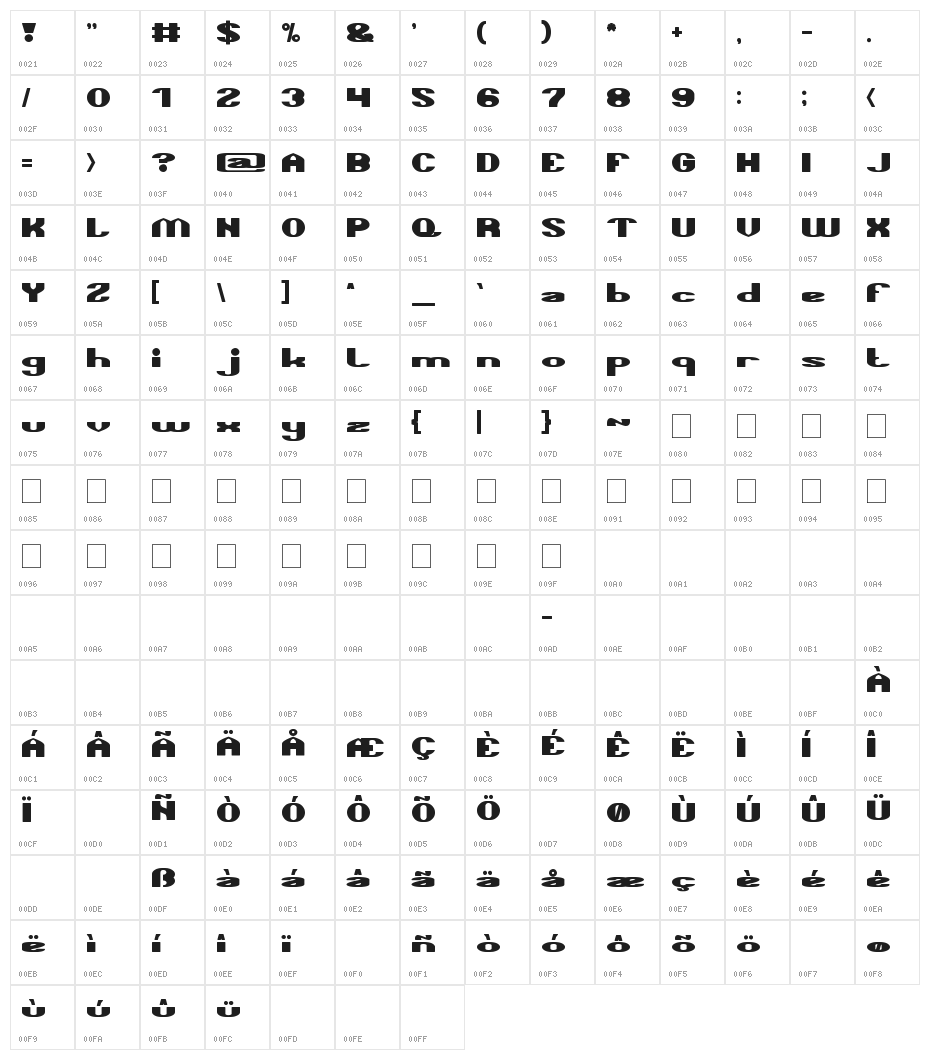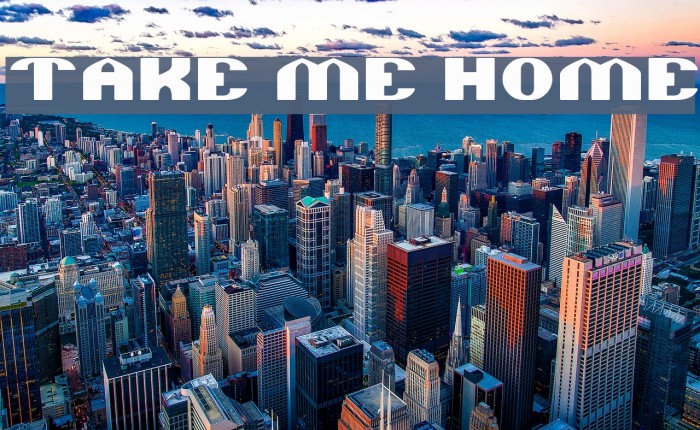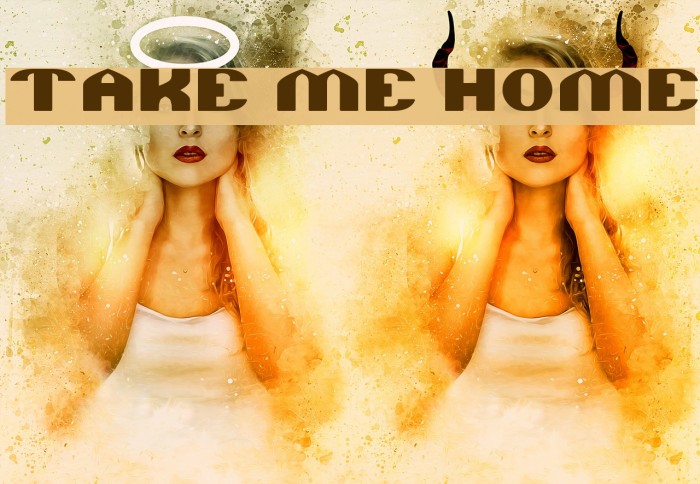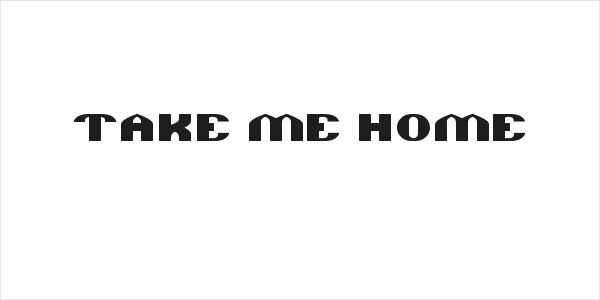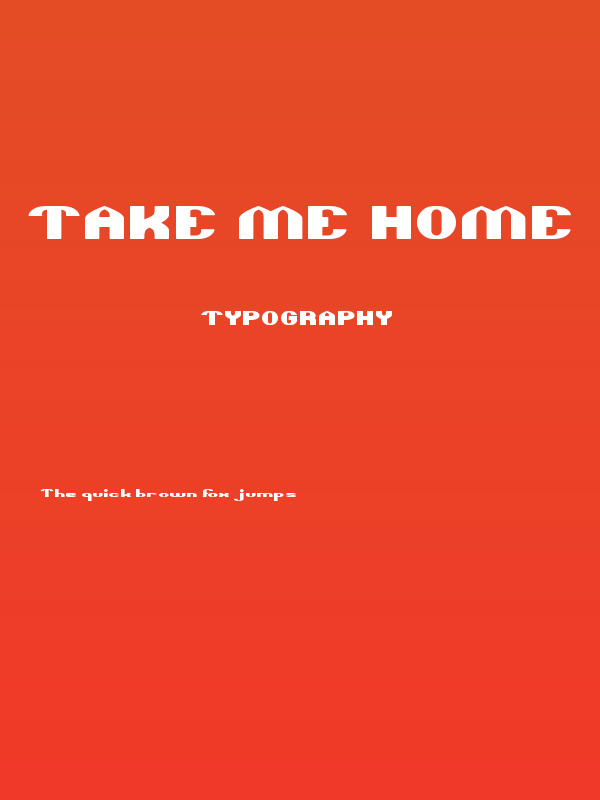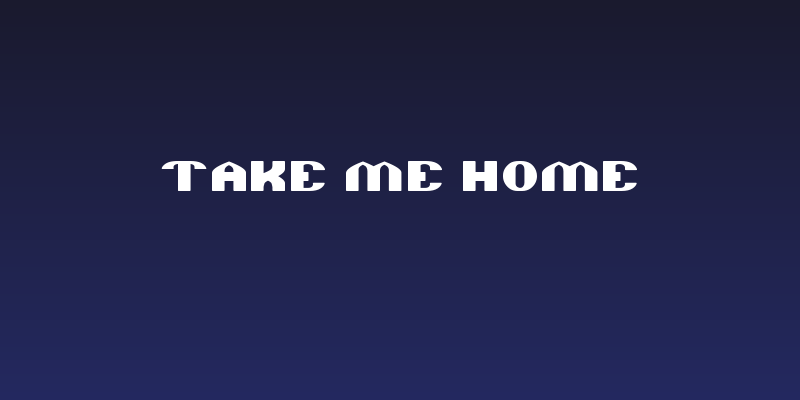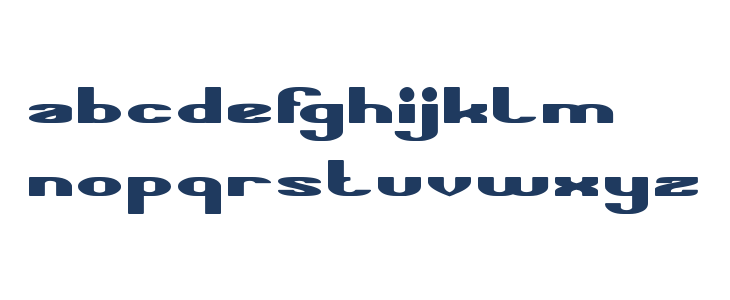
TAKE ME HOME Font
TAKE ME HOME Description
This font features a bold, geometric style with a strong presence. The characters are wide and have a distinct, blocky appearance, making them highly legible and impactful. The uppercase letters have a uniform height, while the lowercase letters maintain a consistent baseline with slight variations in height. The numbers are bold and match the overall style of the alphabet, ensuring consistency across different types of content. Special characters are designed to complement the alphabet, maintaining the same bold and geometric aesthetic. This font is ideal for projects that require a strong visual impact and clear readability.
Proposed ProjectsIdeal for posters, headlines, branding, and any project requiring a bold statement.